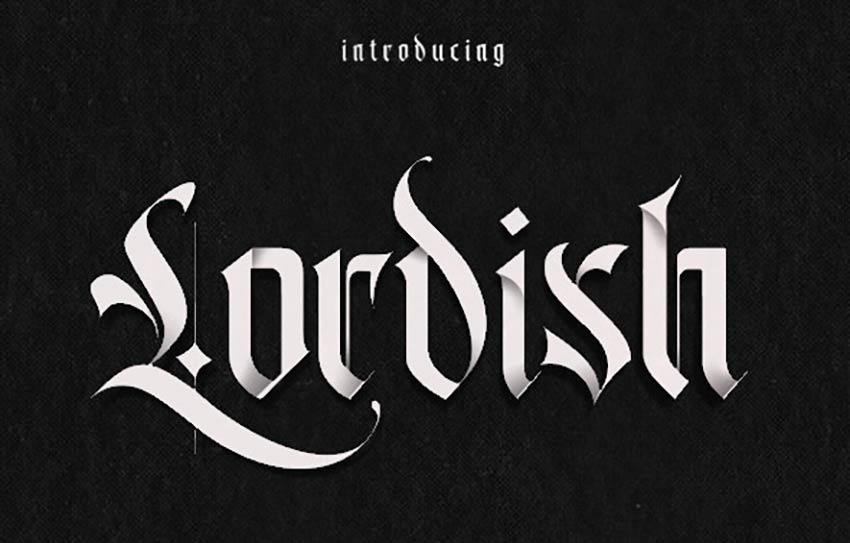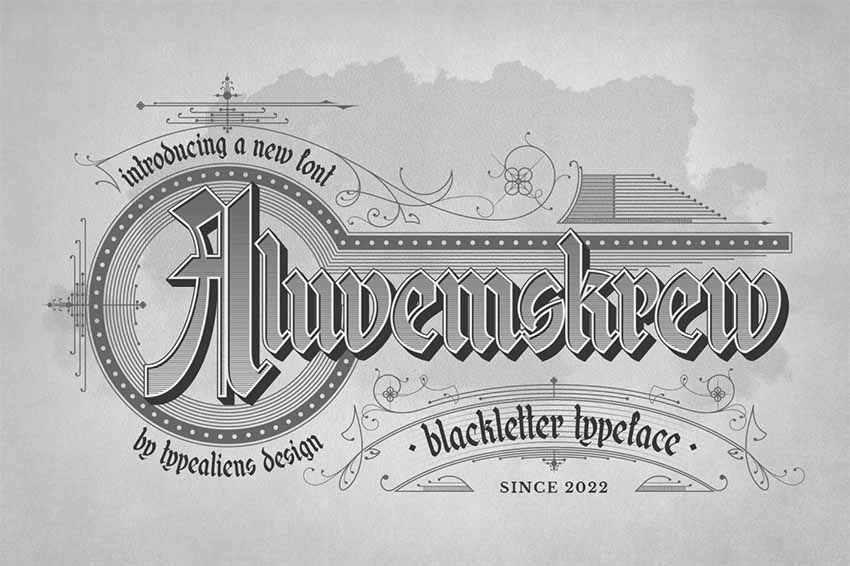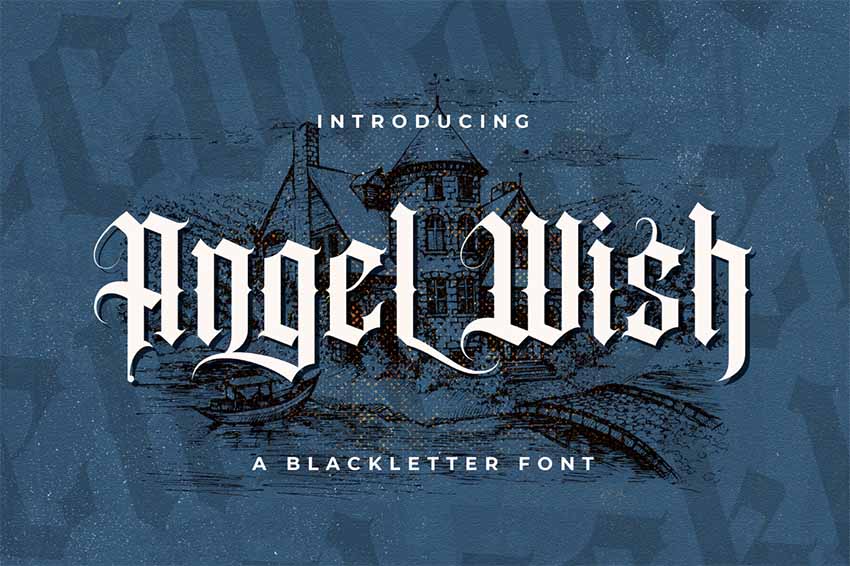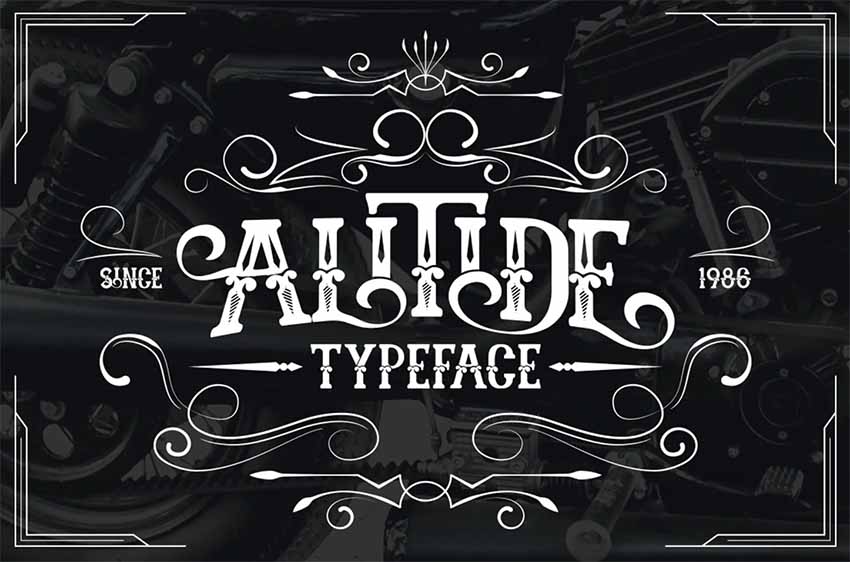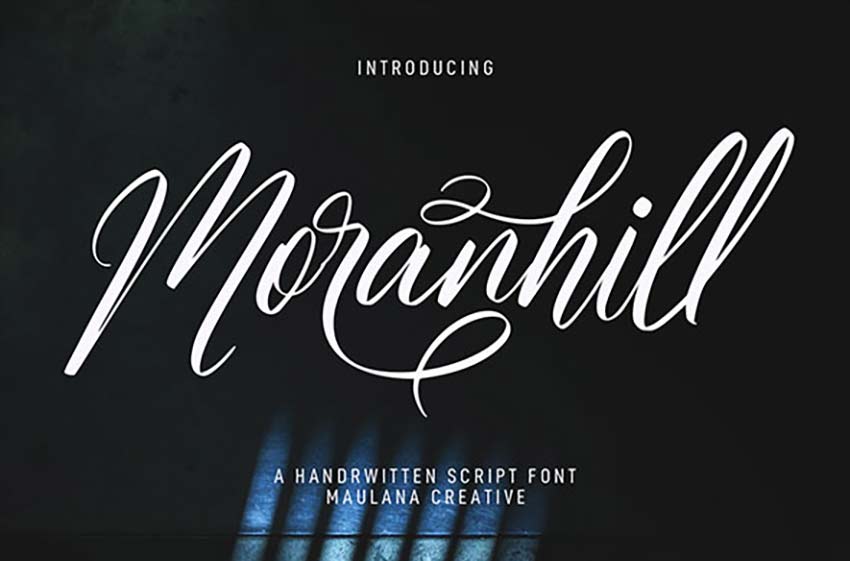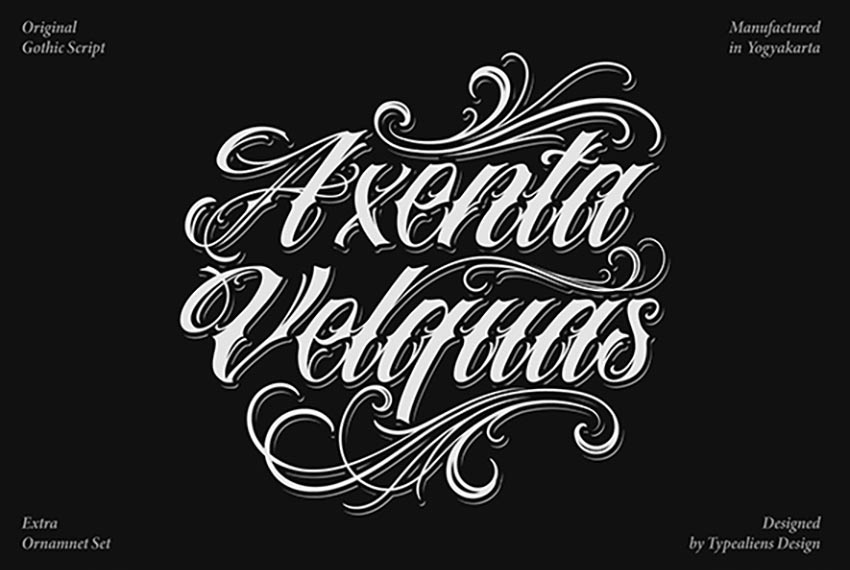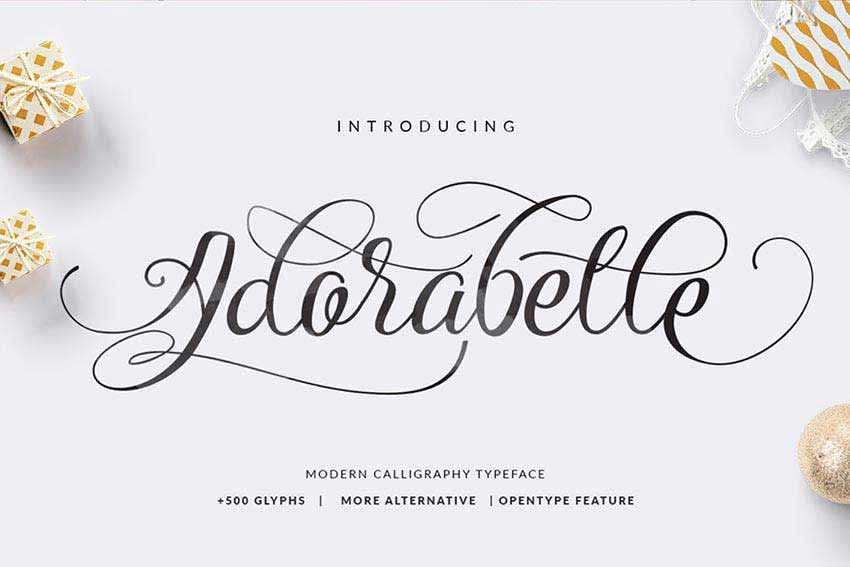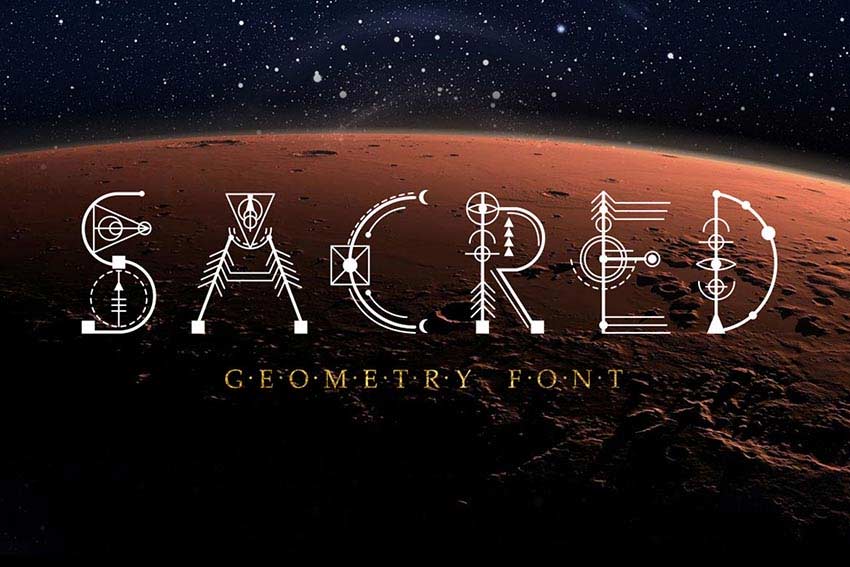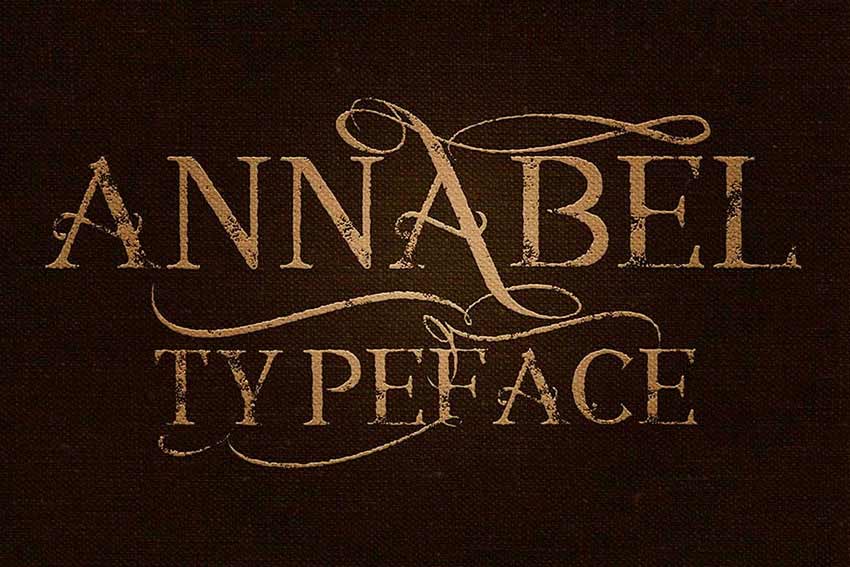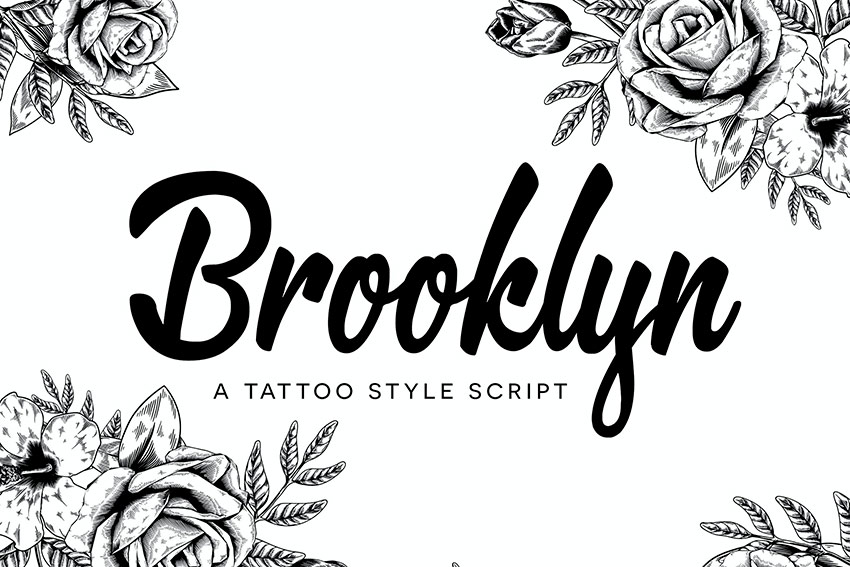
38 Epic Tattoo Fonts
Whether you're looking to get a tattoo for the first time or you're a total tattoo snob, Envato Elements has tons of epic tattoo fonts for you.
38 Epic Tattoo Fonts
1. Tattoo Script Writing Tattoo Font (OTF, TTF)
What better way to start off this collection than with an amazing Old English font tattoo? This awesome script writing tattoo font was inspired by the swirls of traditional tattoos and a unique hand-lettering style. Find packaged into this typeface a complete set of uppercase and lowercase letters. Because numbers are always in style, you'll find Old English numbers for your tattoos in this collection, and even a bonus set of borders for your convenience.
2. Zenzero Round and Bold Tattoo Fonts (OTF, TTF, EOT, SVG, WOFF)
If you're looking for bold tattoo fonts, consider using the Zenzero Sans font for your tattoo art. An industrial-based font created with regular and round styles, this unique gothic font tattoo gives you endless possibilities. It's one of the best tattoo fonts in the Gothic style.
3. Haext Regular Font (OTF)
Explore the rustic Neo-Gothic elements of the Haext font for impressive tattoo designs. Part rune craft, part sacred goddess, this gothic font tattoo is sure to put a spell on you with its spellbinding features.
4. Sacred Geometry Font (OTF, TTF, WOFF, EPS)
Enjoy the sacred geometric shapes of this unique and inspiring font type. Inspired by sacred symbols, this unique gothic font tattoo features letters and basic punctuation. You won't need to look for separate tattoo number fonts as Sacred Geometry includes those, too. Incorporate it into your tattoo designs for that personalized touch.
5. Petit Jardin Font (OTF, TTF)
Delicate with organic, curly serifs, the Petit Jardin font is divinely lovable. Designed for that sweet, dainty look, this font package includes letters, symbols, numbers, and more! Use it for your tattoo lettering font designs for that gorgeous Art Nouveau look.
6. Stiquez Font (OTF)
Although this typeface is perfect for logos, you can also mix it into an awesome tattoo design. This unique serif typeface features a cool retro design that works perfectly in a variety of programs for further customization. Try Stiquez if you're looking for unique, different fonts for tattoos.
7. Annabel Number Fonts for Tattoos (OTF, TTF)
This cool vintage font is perfect for your next ink design. Not only does Annabel Number Fonts for Tattoos offer great letters, but if you are looking for cool numbers, this font is also a great choice for you. Featuring a grungy design with interesting loops and curves, this package comes complete with four font files and so much more!
8. Sentaband Font (OTF, TTF, EOT, SVG, WOFF, WOFF2)
Get crafty with the unique Sentaband font. Designed with an unusual ribbon aesthetic in mind, this font would be the perfect addition to a standalone tattoo design. Included in this package is a full range of letters and more to fulfill your tattoo needs.
9. Stay Alive American Traditional Font (OTF)
Stay alive with this edgy font type. Inspired by the Victorian era and the posters of the 1800s, this font type features a full set of characters and basic symbols. The included number glyphs make Stay Alive one of the more fun tattoo number fonts. Use it for print work or that special ink you've been dying to get!
10. Einstein: A Tattoo Handwriting Font (OTF, TTF, WOFF)
Bring out your inner genius with the awesome Einstein font. A sophisticated script with a playful baseline, this tattoo script font features a full set of letters, numbers, and basic punctuation. The style of the glyphs makes for one of the more interesting tattoo lettering fonts. Download this package to gain access to a bonus swash set!
11. Twenty Nine for Cute & Small Cursive Tattoos (OTF, TTF, WOFF)
Twenty Nine is a playful marker typeface featuring a simple, curvy style. With a bouncy baseline and a few sweet bonuses included, you'll be happy you downloaded this set. An additional set of handcrafted ornaments is also included for that extra awesome touch!
12. SokaQola Cursive: Lettering Fonts for Tattoos (OTF, TTF)
A modern typeface handcrafted with brushes, the SokaQola cursive tattoo font features an elegant design suitable for print work, tattoo art, and so much more. Included in this set is a full range of characters with additional stylistic ligatures for more design options.
13. Rude Cookie: 5 Bold Tattoo Fonts (OTF)
Get rude with this delicious typeface. A hand-drawn font designed with unique character, this file includes two serif fonts along with two script fonts. These fonts are created to work perfectly together, so you can mix them for interesting tattoo designs.
14. Hello Lary for Small and Cursive Tattoos (OTF, TTF)